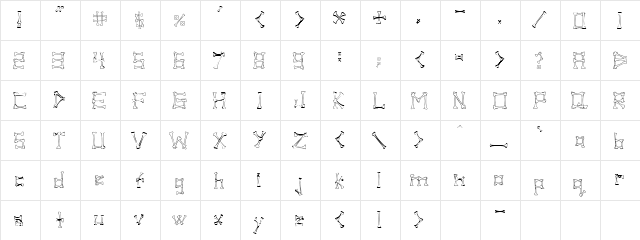
Pirate Regular
Design Context for Pirate Typeface
Pirate is a composed and adaptable typeface that performs quietly and consistently across a wide range of design contexts.